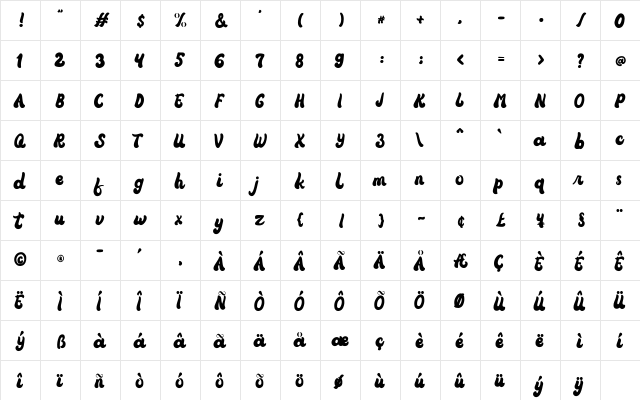
Vintage Rumble Regular
| Designer | Fatma Studio |
Design Context for Vintage Rumble Typeface
Vintage Rumble wears its vintage influences proudly, with letterforms that recall mid-century signage, classic packaging, and nostalgia-driven design.
Perfect for vintage-inspired branding, retro packaging, nostalgia campaigns, and period-accurate editorial design.
Font Pairing: Combine Vintage Rumble with a simple slab or neutral sans — period-accurate companions reinforce the vintage feel without competing for attention.
Pro Tip: Use Vintage Rumble for headlines and pull quotes rather than body copy — its personality is best appreciated in short, focused bursts.